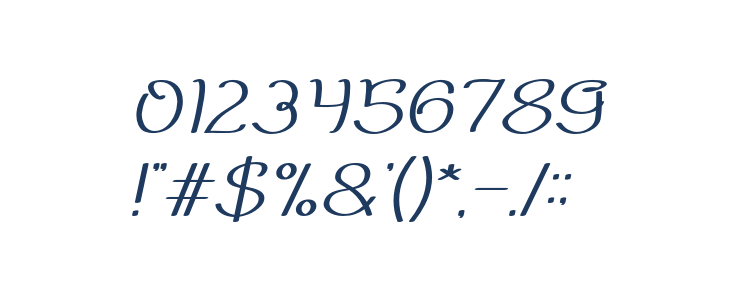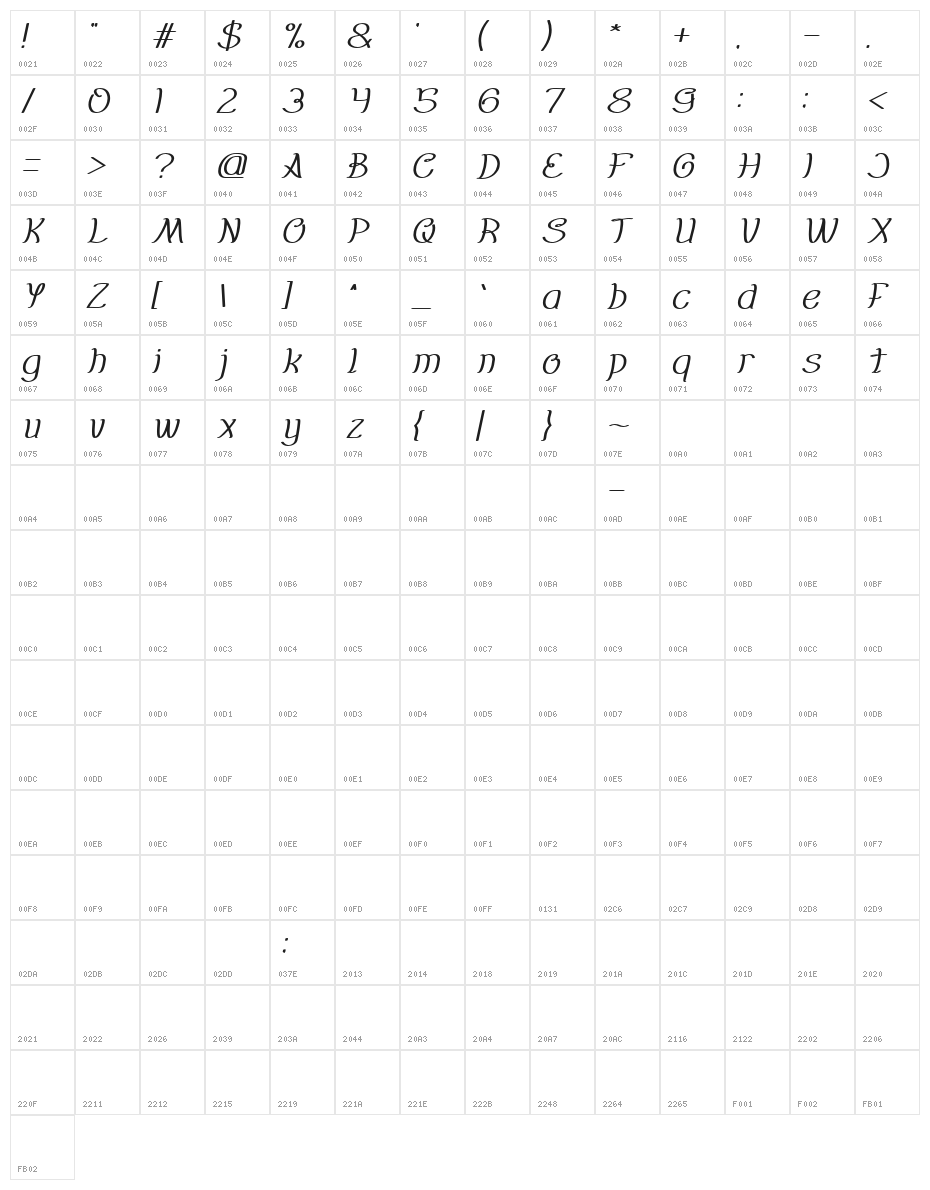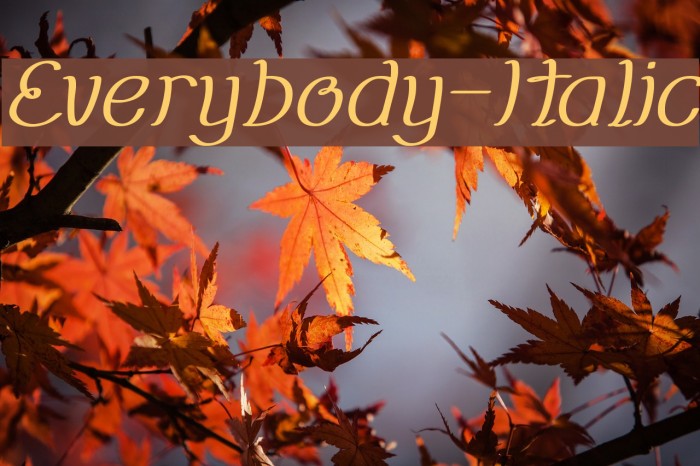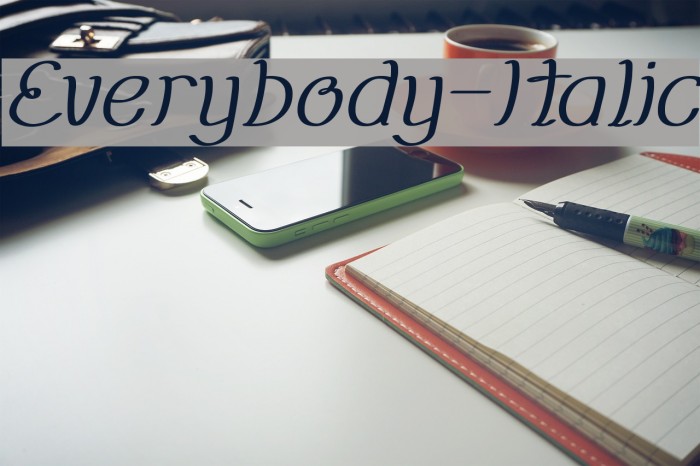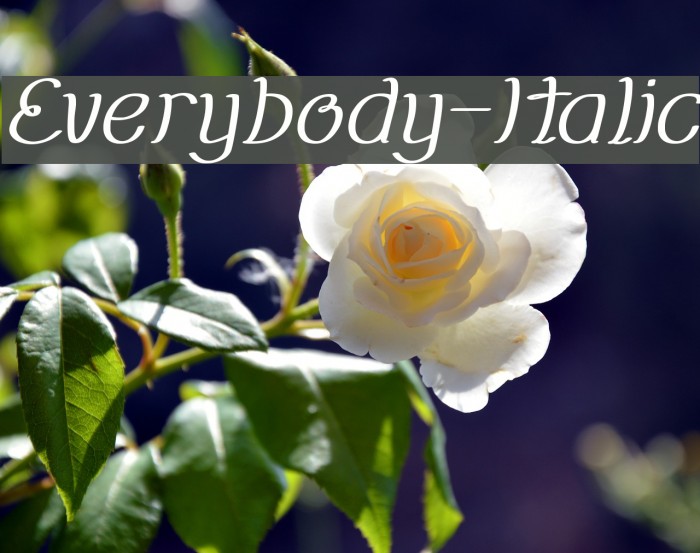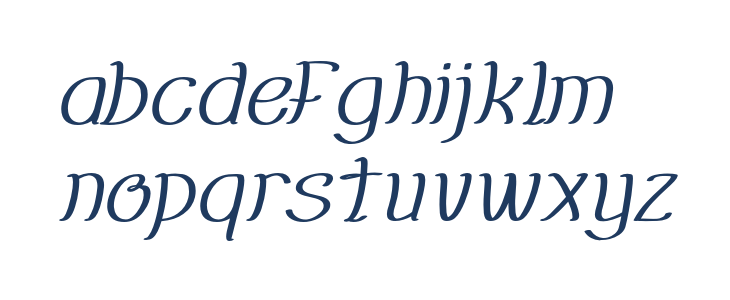
Everybody-Italic Font
Everybody-Italic Description
This font features a flowing, cursive style with a distinct italic slant, giving it a sense of movement and elegance. The characters are connected in a way that mimics natural handwriting, with smooth curves and a consistent stroke width. The uppercase letters are slightly more ornate, with flourishes that add a touch of sophistication. The lowercase letters maintain a cohesive look, making it easy to read while retaining a stylish appearance. The numerals and special characters are designed to match the overall aesthetic, ensuring a harmonious look across all text elements.
| Proposed Projects | Ideal for wedding invitations, greeting cards, personal branding, and elegant logos. |